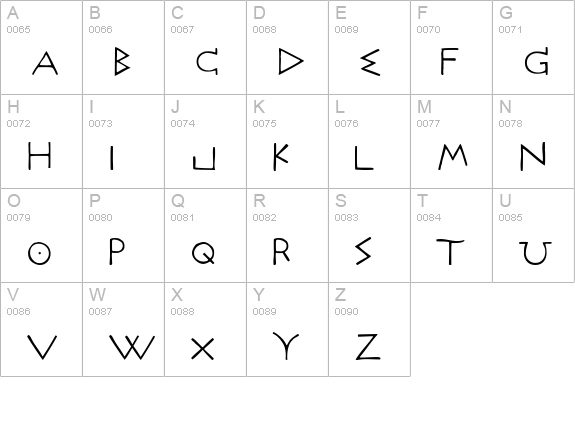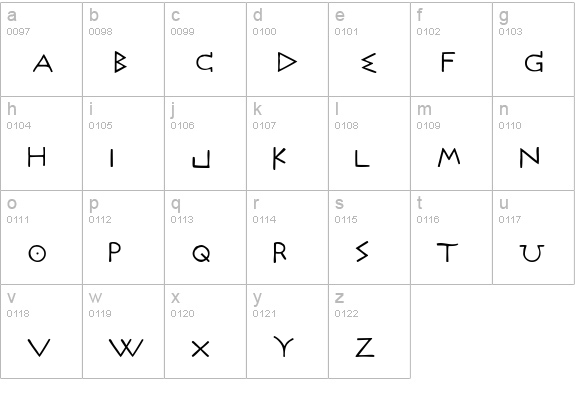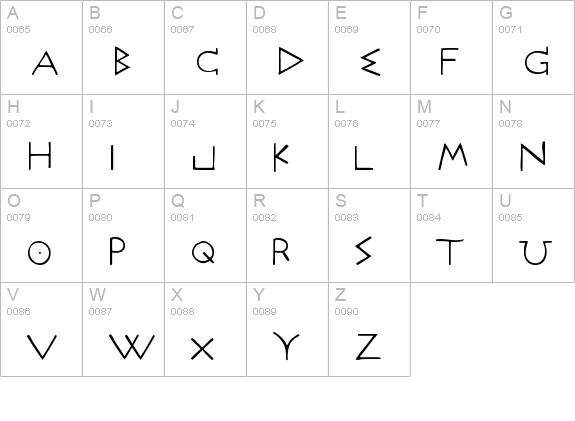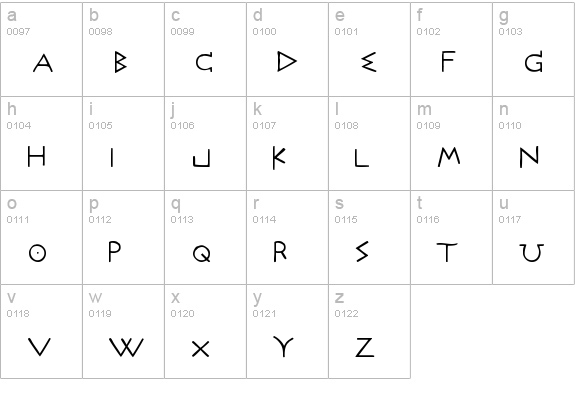
P22 Acropolis Now Font Details
P22 Acropolis Now is a stunning font that effortlessly combines classic elegance with a modern twist. Inspired by the iconic architecture of ancient Greece, this typeface captures the timeless beauty and grandeur of the Acropolis. With its clean lines and delicate curves, P22 Acropolis Now exudes a sense of sophistication and refinement. This font is perfect for a wide range of design projects, from branding and logos to editorial layouts and signage. Its versatility allows it to adapt to various styles and themes, making it a go-to choice for designers looking to make a bold statement. What sets P22 Acropolis Now apart is its unique ability to evoke a feeling of history and tradition while still feeling fresh and contemporary. The font's intricate details and exquisite craftsmanship reflect the meticulous attention to detail found in the Acropolis itself. And the best part? P22 Acropolis Now is available for free! You can easily download this remarkable font at FontsMarket.com, where you'll find a vast collection of free fonts that will elevate your design projects to new heights. So, whether you're working on a high-end fashion brand, a luxurious hotel, or a cultural event, P22 Acropolis Now is the perfect choice to add a touch of elegance and sophistication to your designs. Don't miss out on the opportunity to use this exceptional font freely available for download at FontsMarket.com.